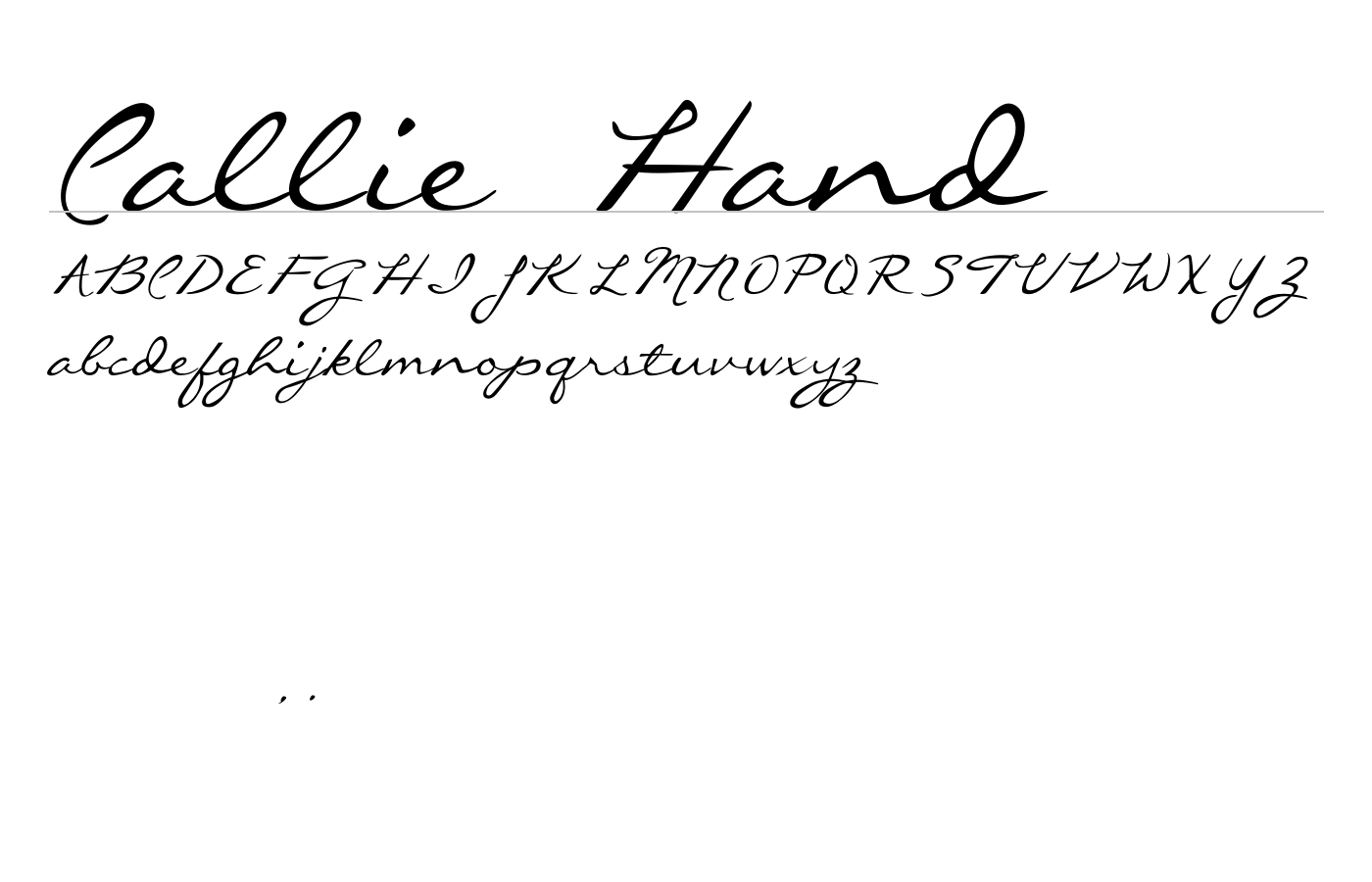
Callie Hand is a graceful handwritten script font with a light, flowing weight and elegant, slender strokes that mimic natural penmanship. Its smooth, connected letterforms and delicate curves give it a personal, approachable feel, making it ideal for invitations, branding, and creative projects that seek a warm, intimate touch. This font works beautifully for designs that need a stylish yet casual handwritten look.
Callie Hand Font
About Callie Hand Font